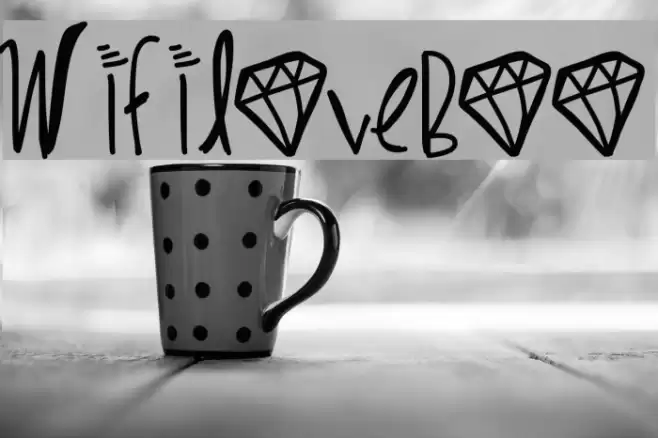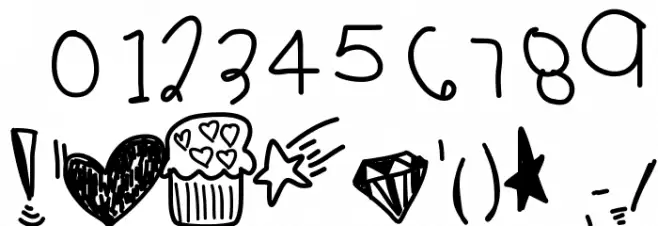
WifiLoveBoo Font
WifiLoveBoo Description
This playful and whimsical font features a handwritten style with a casual and informal appearance. The letters are characterized by their uneven strokes and varying heights, giving them a lively and dynamic feel. The uppercase and lowercase letters maintain a consistent style, with some letters featuring unique embellishments like loops and curls. The numbers are simple yet maintain the playful essence of the font. Special characters include charming symbols like hearts, stars, and diamonds, adding to the font's decorative appeal. This font is perfect for projects that require a fun and lighthearted touch.
A playful, handwritten font with whimsical strokes and decorative symbols from Cartoon fonts.
- Proposed Projects: Ideal for greeting cards, children's books, playful branding, and social media graphics.
- Use Case: Logos, Headlines, Decorative text